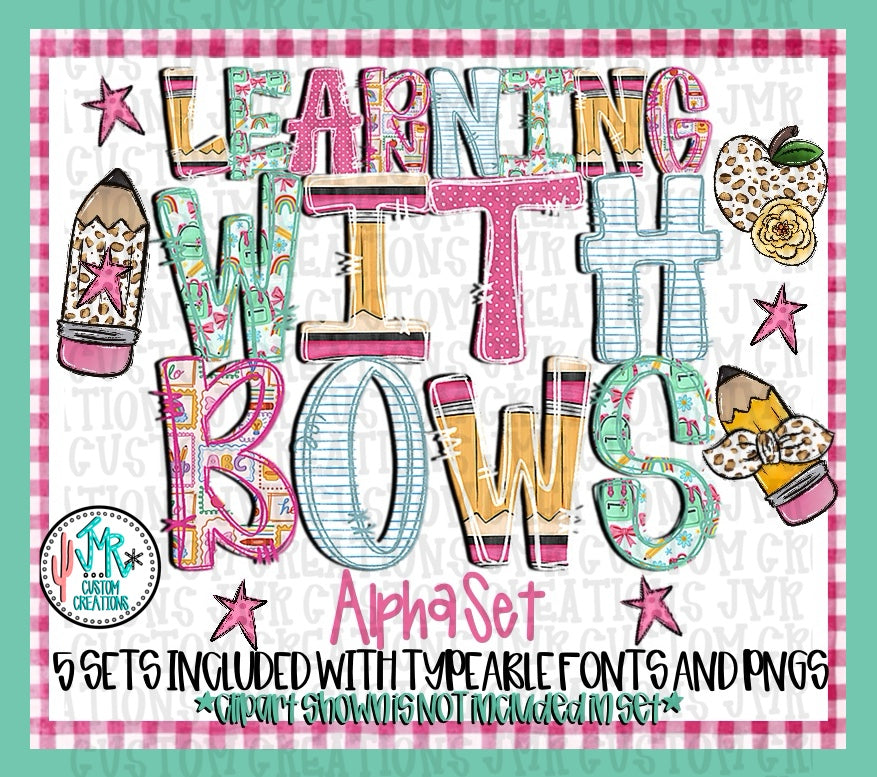
Learning With Bows Alpha Set WITH Typeable OTF Font
This is a DIGITAL Alphabet Design in fun and girly colors and patterns in my Preppy Pop alphabet that is hand-drawn by me! will come with a full alphabet in each pattern shown in the picture. This set includes PNG files AND a Typeable OTF Font. It is ready for you to design whatever you want!